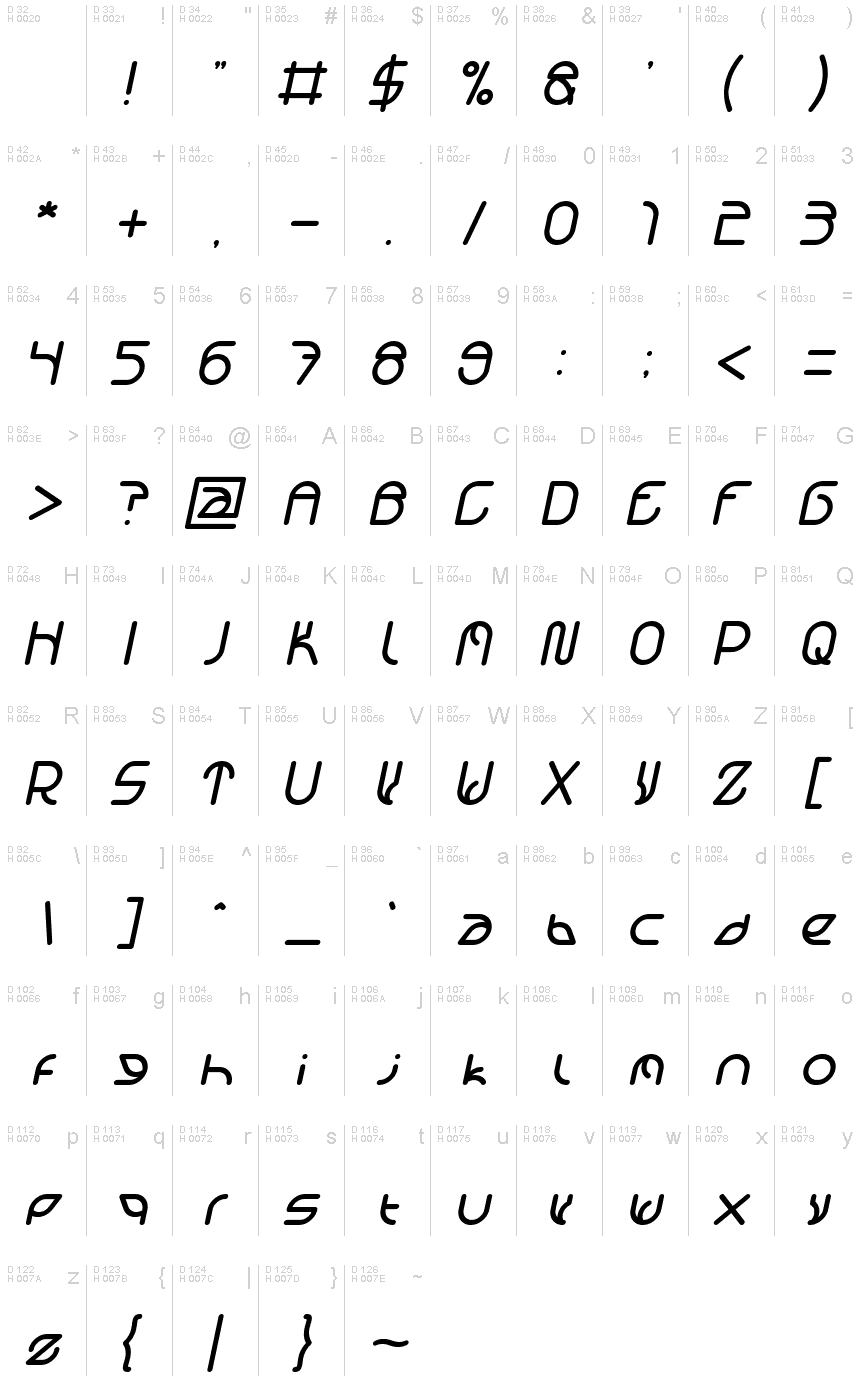
VICTORY-Italic Italic
VICTORY Italic, a futuristic semi-light font from the VICTORY font family designed by weknow, brings an avant-garde touch to your projects. Its sleek and stylish display typeface lends itself perfectly to modern sci-fi movies or video game titles, adding a sense of adventure and innovation. The semi-expanded width enhances legibility while maintaining an elegant balance. Let VICTORY Italic take your designs to new frontiers, making them visually striking and captivating for posters, website headers, or branding materials where a touch of futurism is desired. Embrace the boldness of VICTORY Italic and leave a lasting impression.